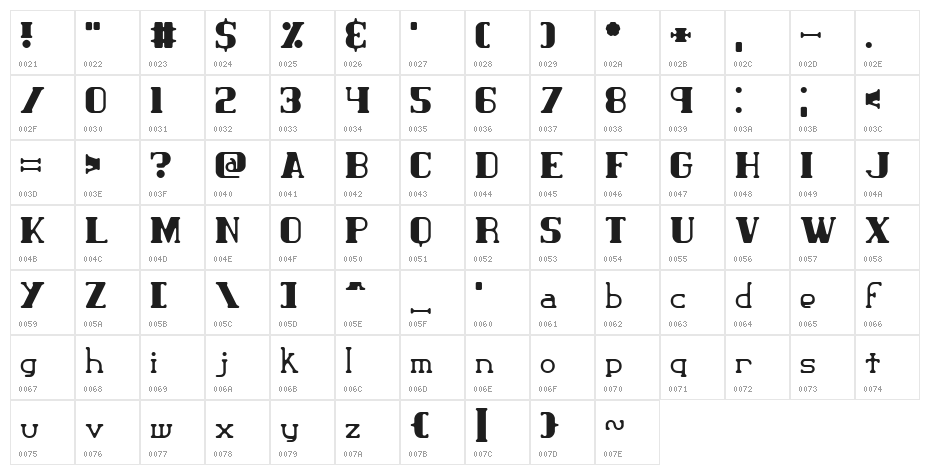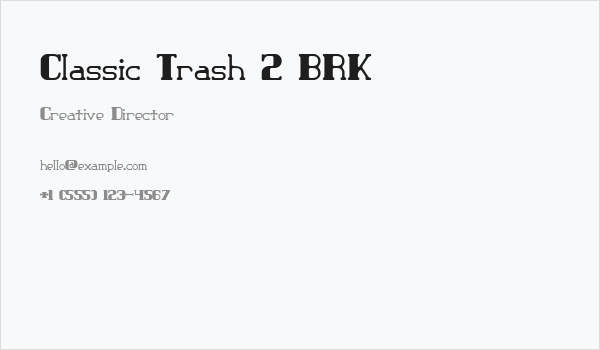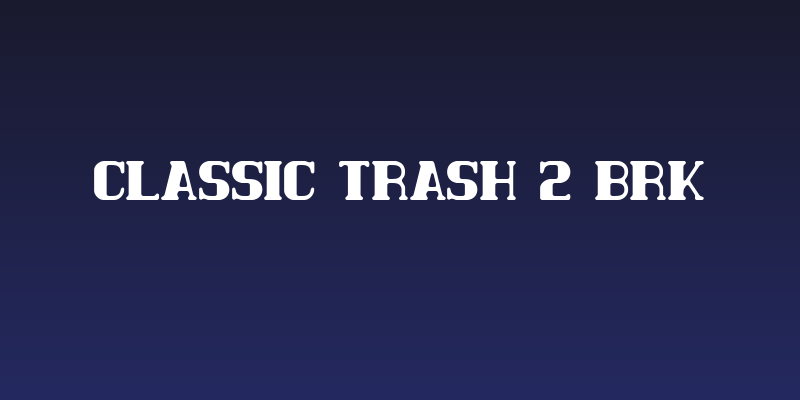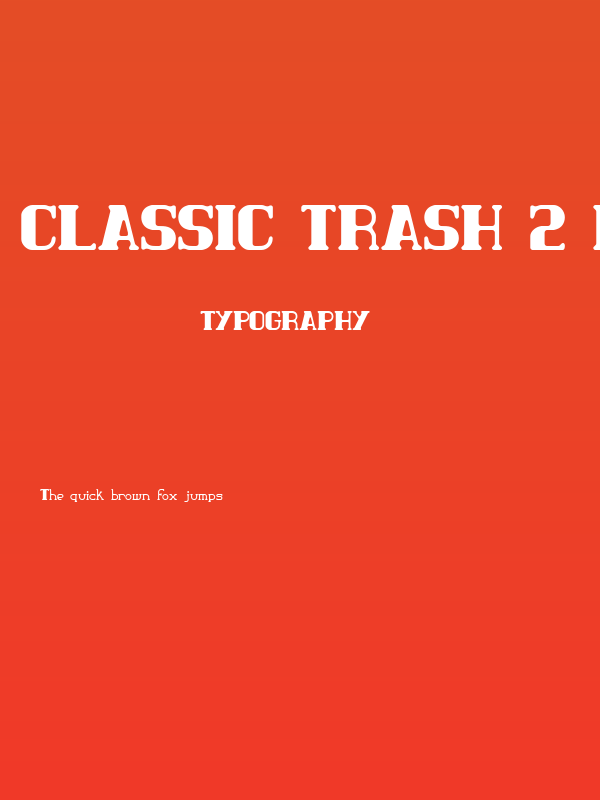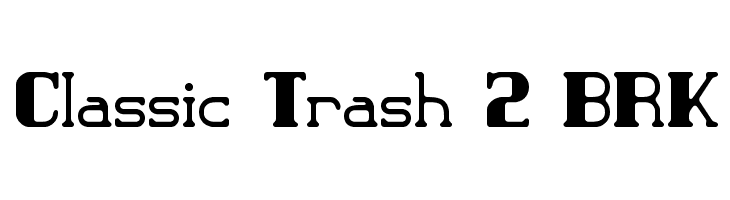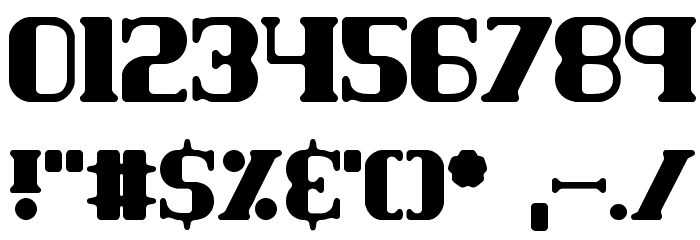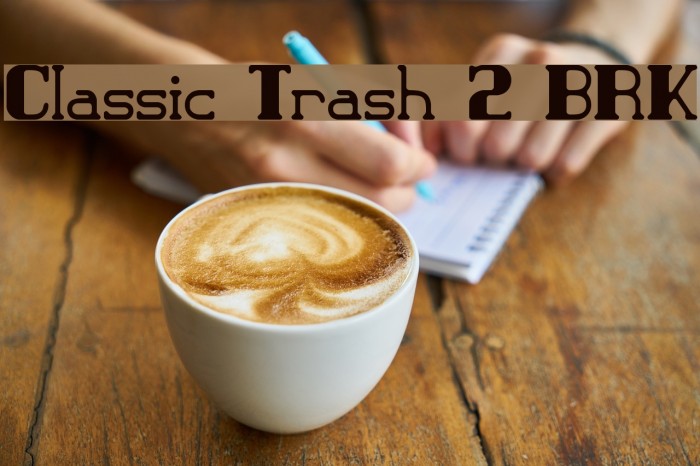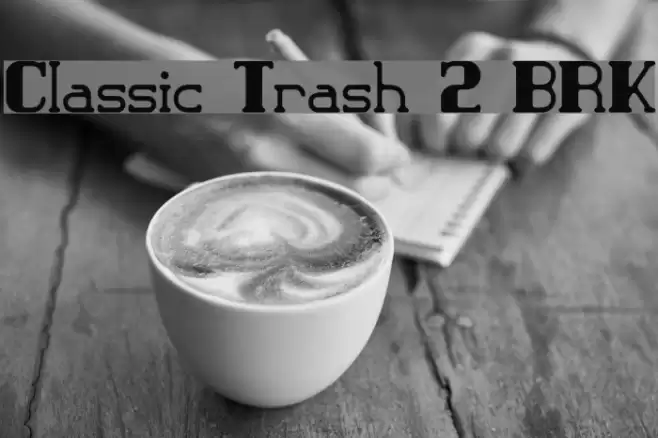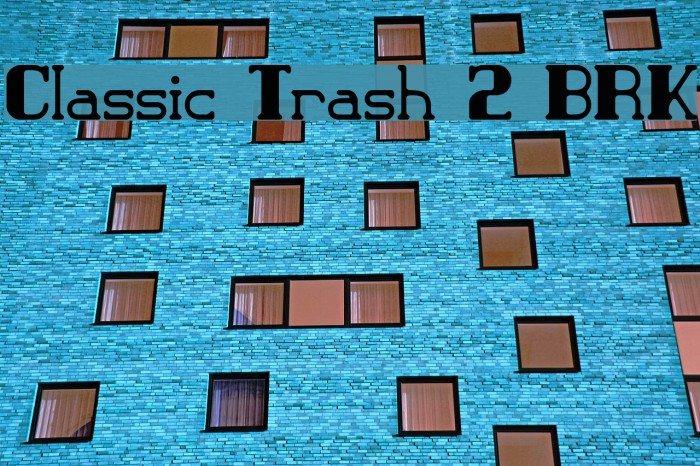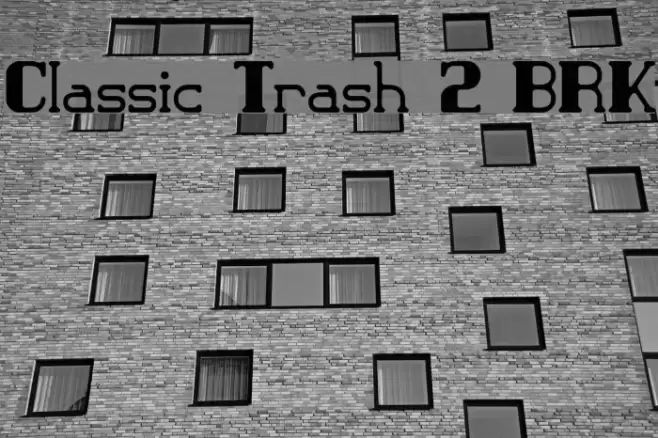
Classic Trash 2 BRK Font
Classic Trash 2 BRK Description
This font exhibits a bold and distinctive style, characterized by its thick, slab-like serifs and a slightly condensed structure. The uppercase letters are robust and commanding, with a unique blend of curves and sharp angles that give it a vintage yet modern appeal. The lowercase letters maintain a consistent style, with some characters featuring playful, unexpected twists, such as the lowercase 'g' and 'y'. Numbers are equally bold, ensuring visibility and impact. Special characters are creatively designed, adding to the font's decorative nature. Overall, this font combines elements of traditional serif fonts with a modern twist, making it suitable for eye-catching designs.
| Width | Condensed |
| Overall Style | Vintage |
| Proposed Projects | Ideal for poster designs, branding projects, headlines, and any creative work that requires a bold, vintage aesthetic. |